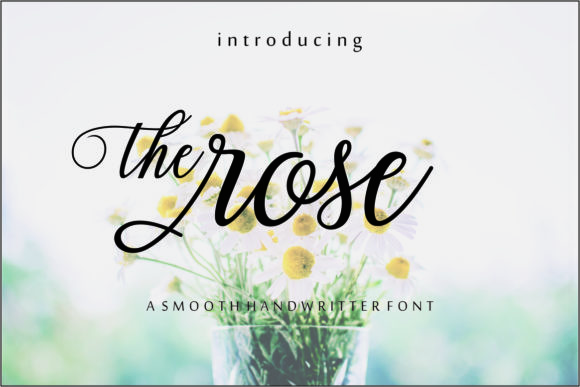
Prepare yourself to be the center of attention with The Rose Script Font, an exquisite handwritten font that will add a touch of elegance and sophistication to all your designs. Each letter is meticulously crafted to evoke a sense of timeless beauty, making it the perfect choice for those special occasions that call for a touch of luxury.
Indulge in the opulence of The Rose Script Font and let your designs exude an air of refinement. Whether it's a heartfelt wedding invitation, a memorable greeting card, or a captivating poster, this font will effortlessly elevate your creations to new heights.
Imagine the joy of crafting business cards that leave a lasting impression, or the allure of headers that demand attention. The Rose Script Font empowers you to create a visual masterpiece with every stroke, capturing hearts and captivating imaginations.
Let the allure of The Rose Script Font ignite your creativity and paint a picture of elegance in your designs. The possibilities are endless, so embrace the beauty and make your mark with this enchanting font today.